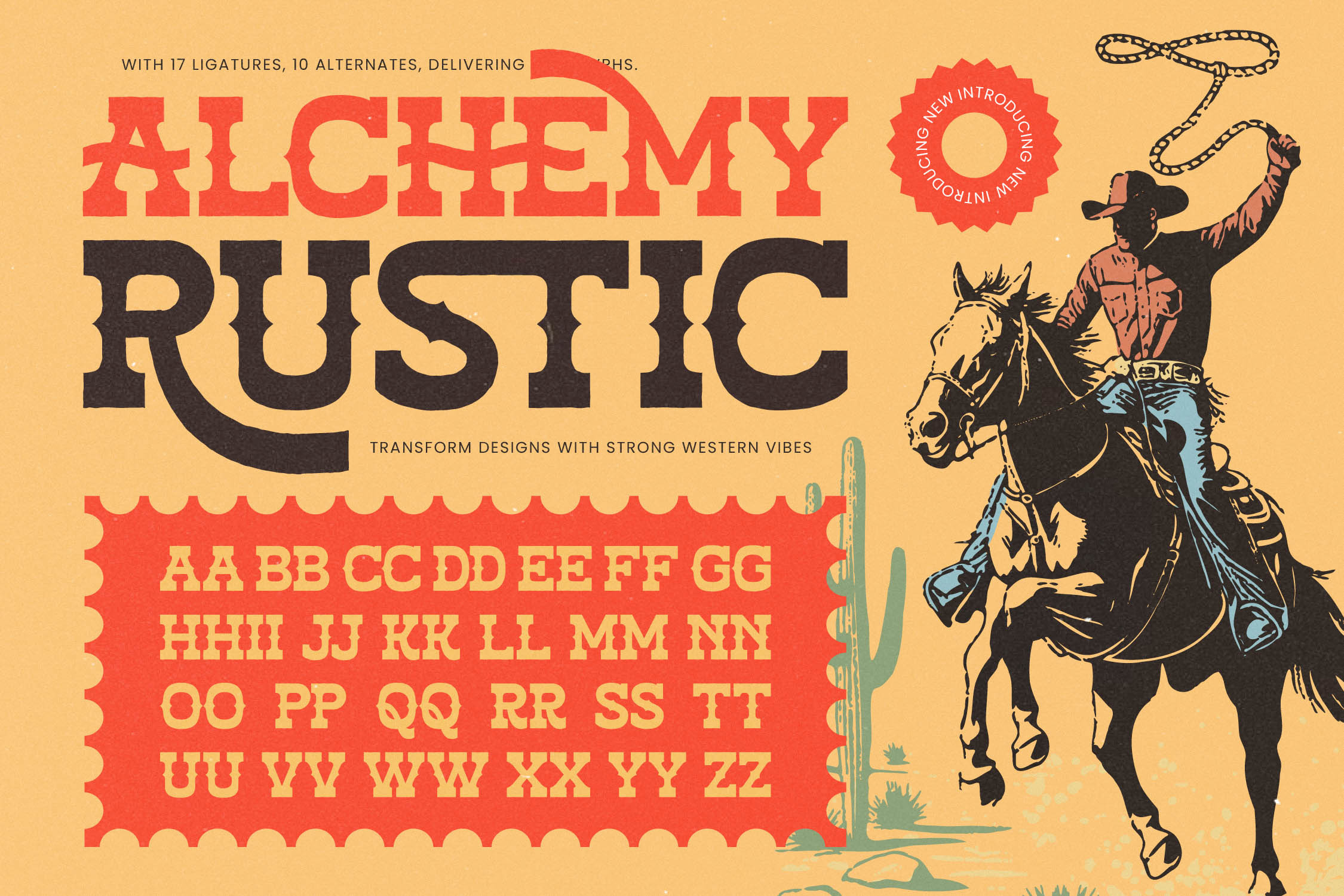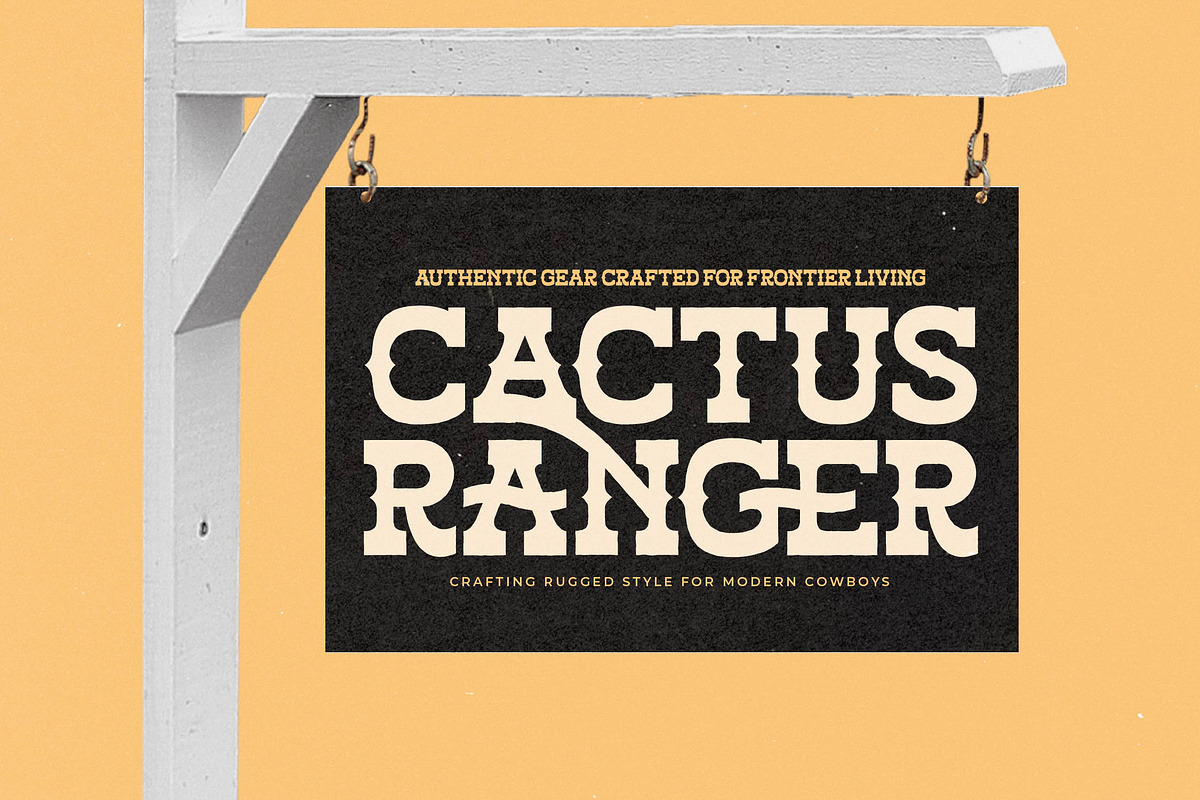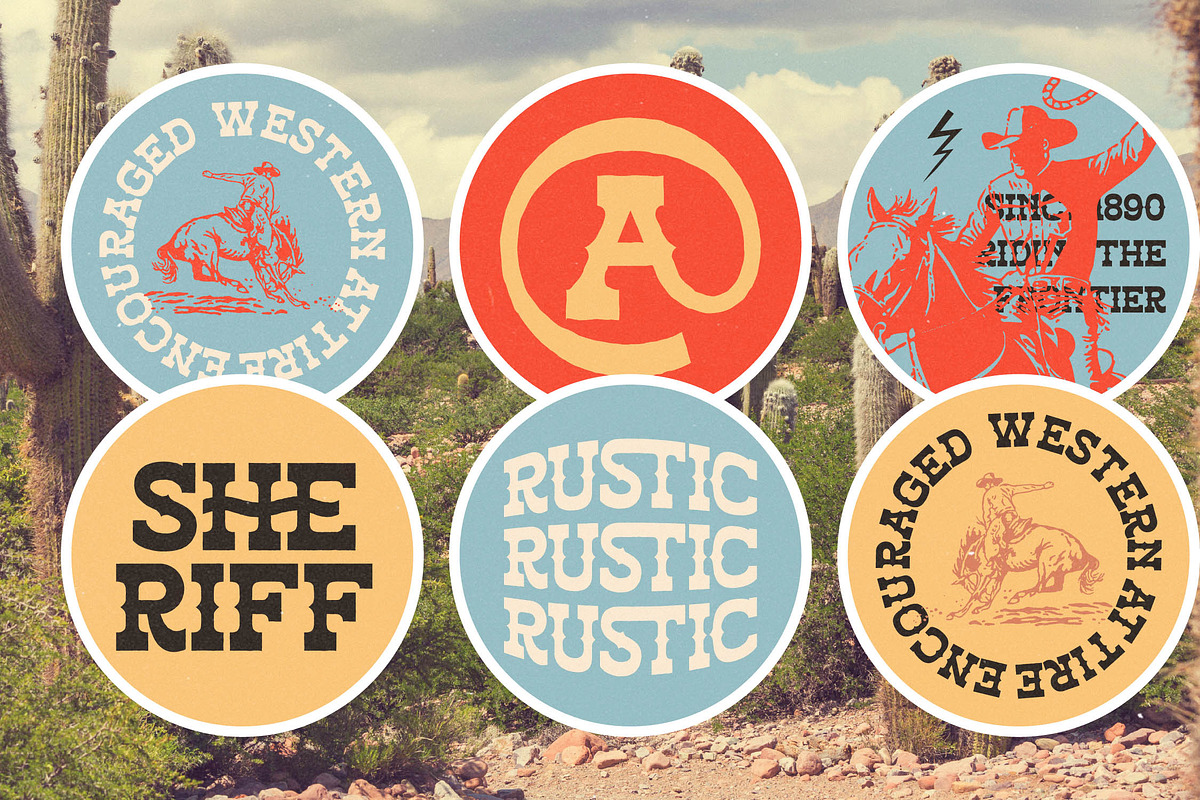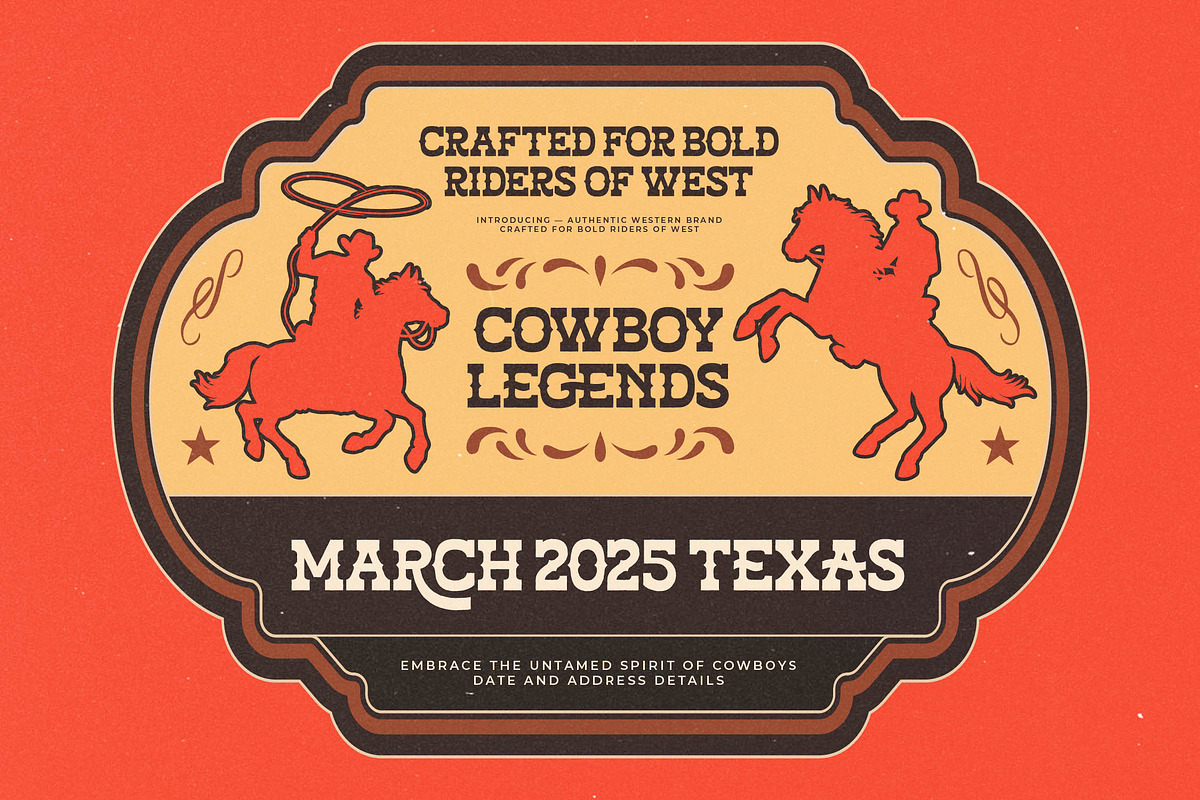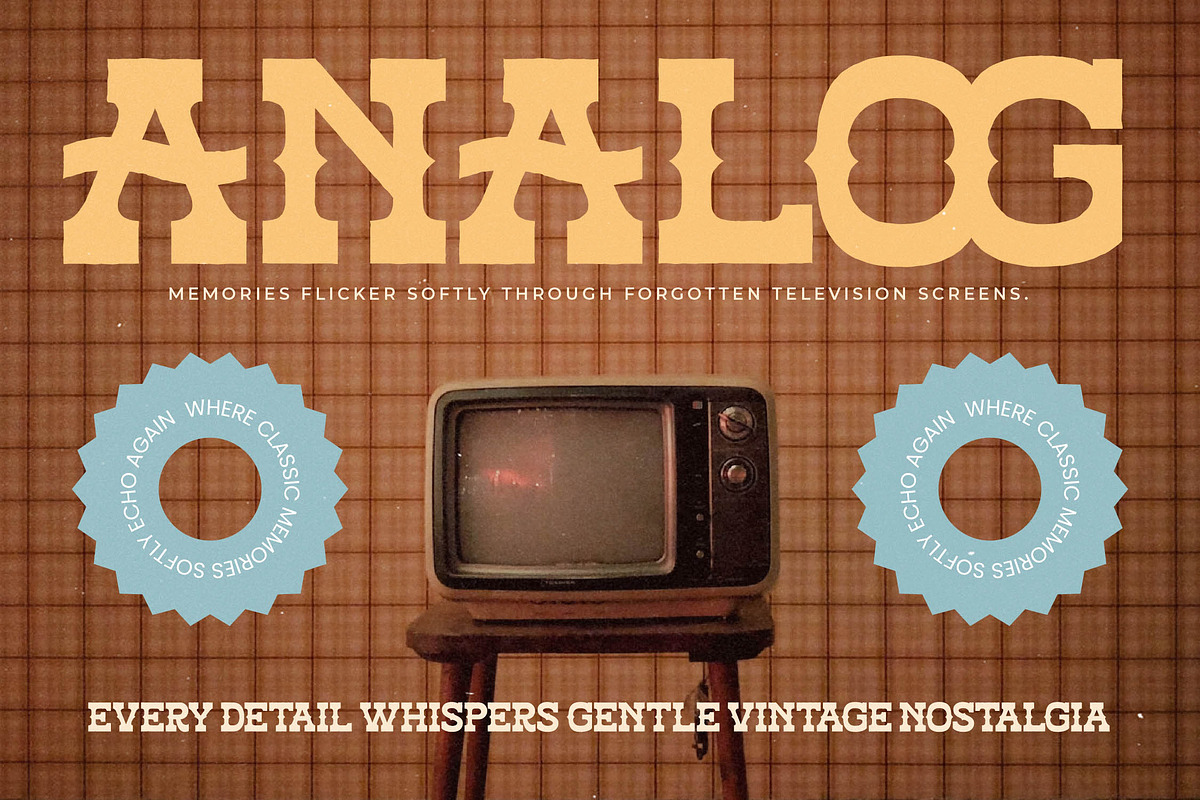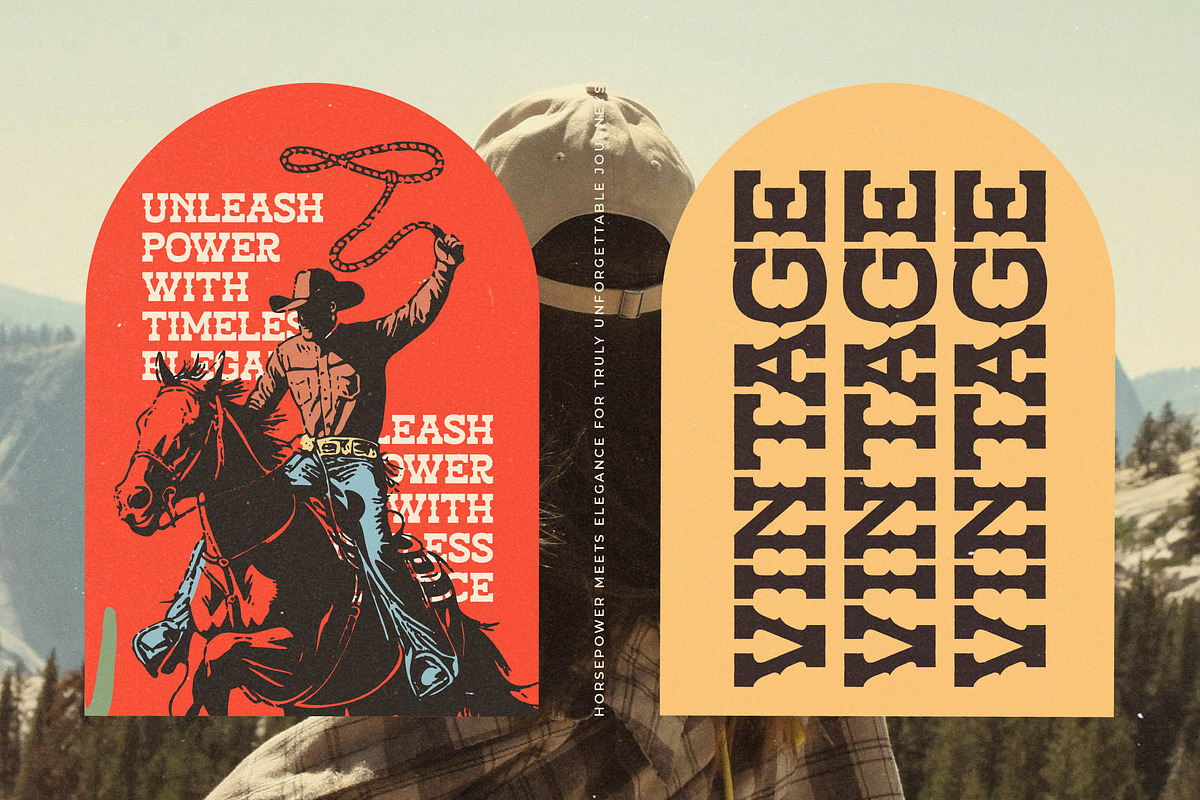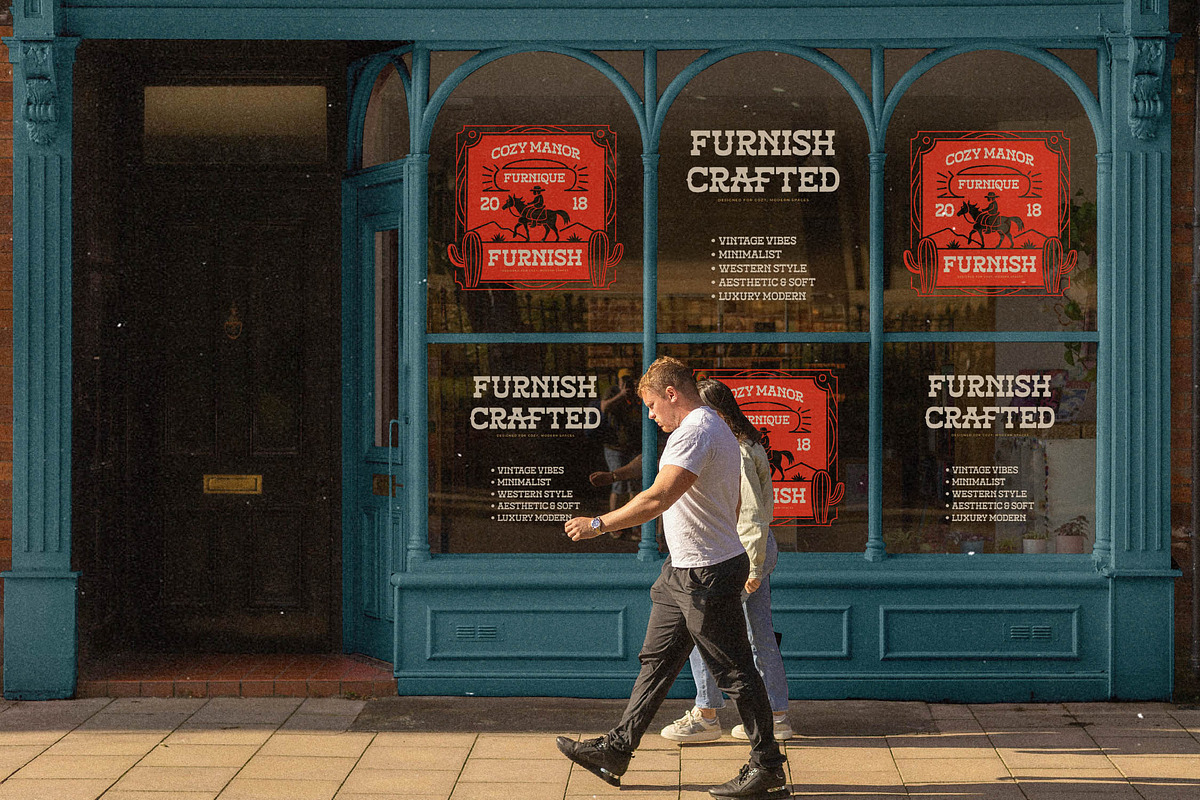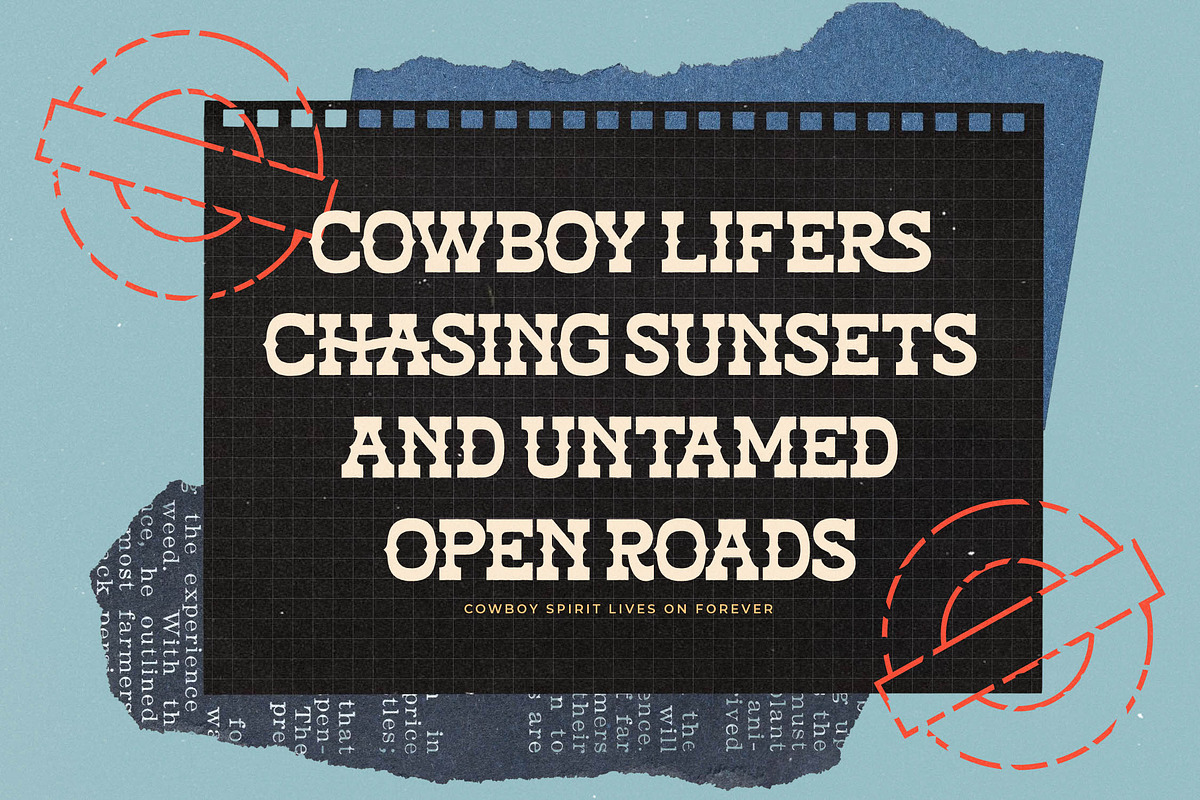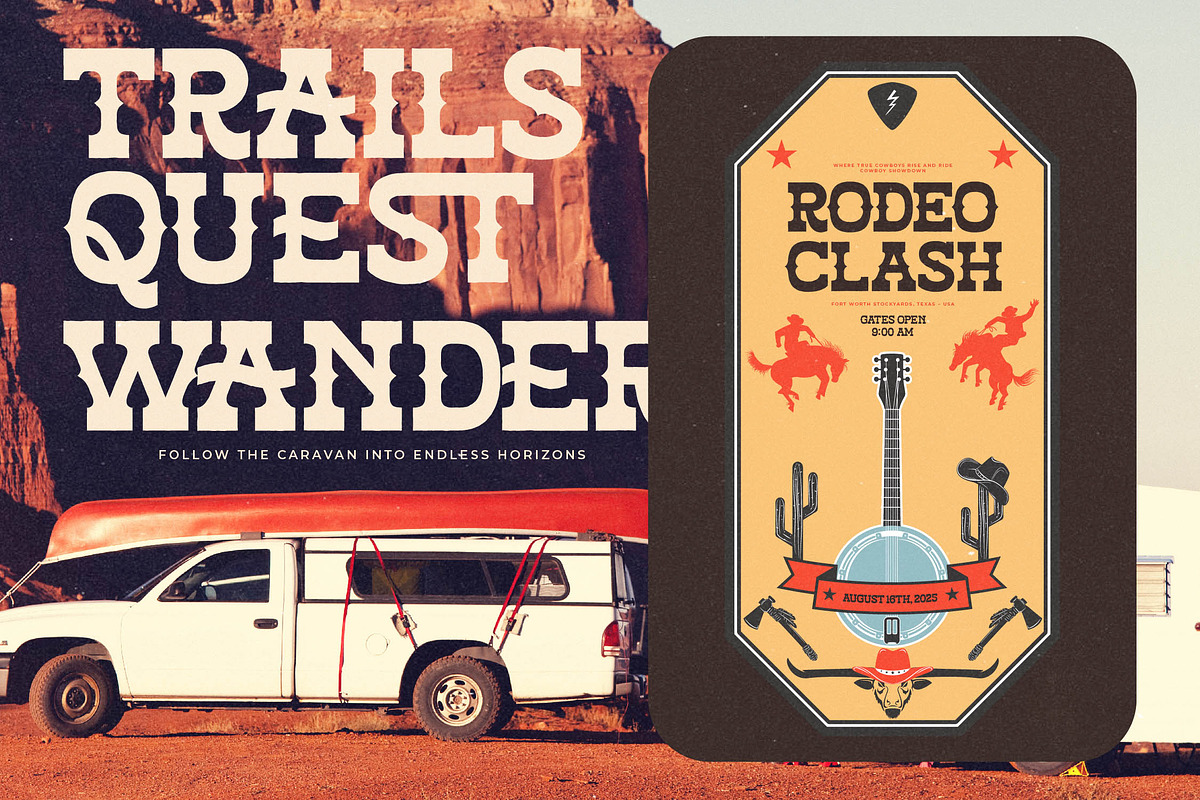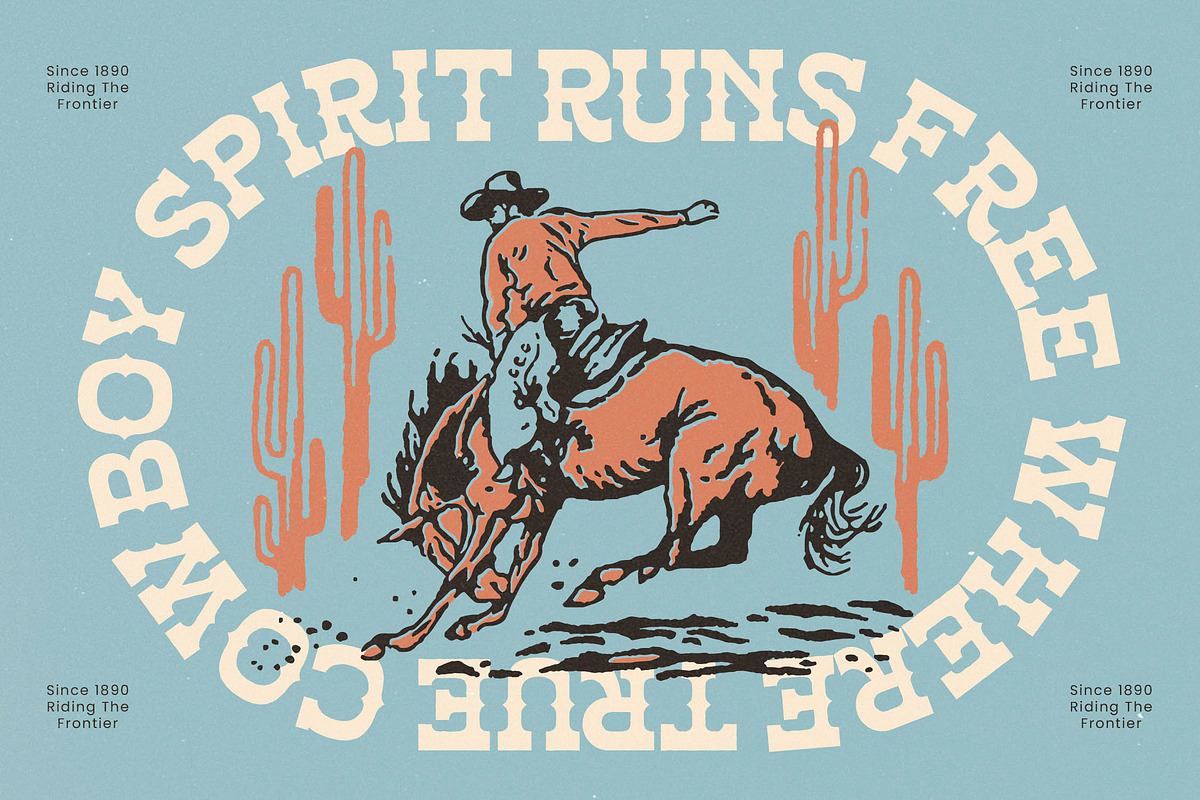
Alchemy Rustic Western Serif Font
Experience the rugged charm and untamed spirit of Alchemy Rustic, a typeface designed to command attention with its bold, frontier-inspired aesthetic. This font captures the essence of the Wild West while maintaining a sophisticated edge for contemporary creators.
Drawing inspiration from vintage saloon signage and hand-painted livestock branding, the letterforms evoke the dust and grit of the open range. It tells a story of adventure and craftsmanship, blending historical woodblock textures with a sharp, modern execution.
This modern serif display offers an unparalleled branding impact, making it the perfect choice for projects that require a luxury typography feel with a raw, authentic twist. As a high-contrast serif, it functions beautifully as an editorial font that balances weight and elegance effortlessly.
Tapping into the current modern serif trend, this typeface fulfills the growing demand for character-driven typography in the digital age. Designers looking for editorial display fonts will find its unique spurs and sturdy stems perfectly aligned with today’s nostalgic yet forward-thinking visual movements.
From high-end logo design to rugged packaging, this versatile face excels in branding environments where personality is paramount. While it thrives in editorial layouts, it also brings a surprising warmth to wedding stationery or high-street fashion lookbooks seeking a heritage-inspired look.
Each character is meticulously crafted, including a wide array of ligatures and alternates to help you customize every headline. The set also features decorative swashes and full multilingual support with international characters to ensure your message reaches a global audience.
Numerals
Punctuations (OpenType Standard)
Accents (Multilingual Characters)
Ligatures and Alternative Style Stylistic Set